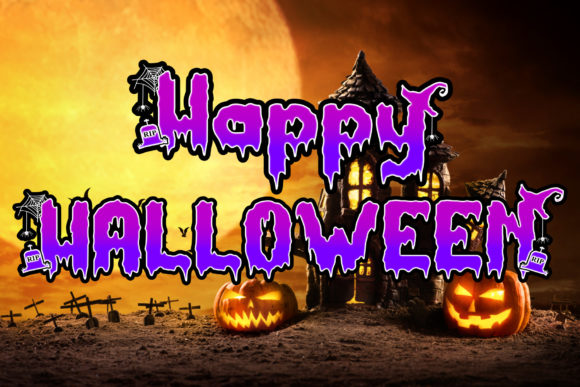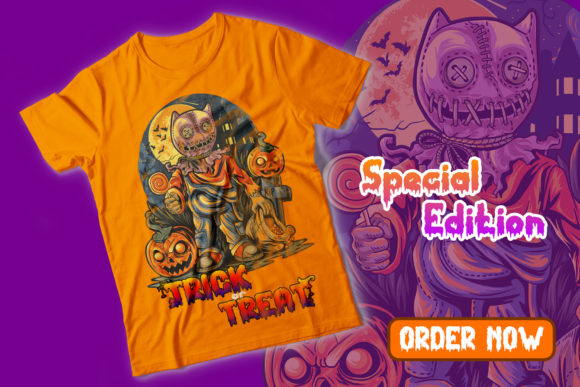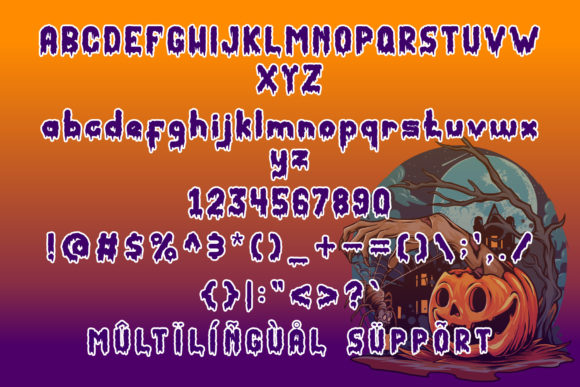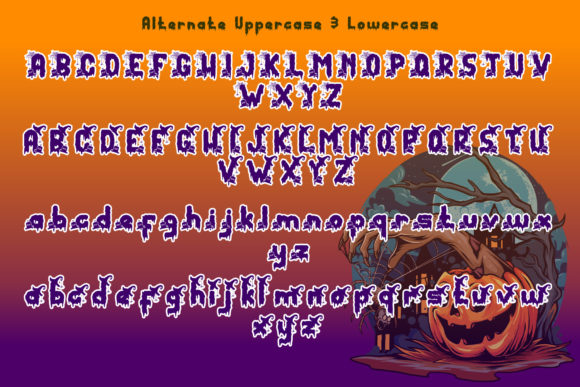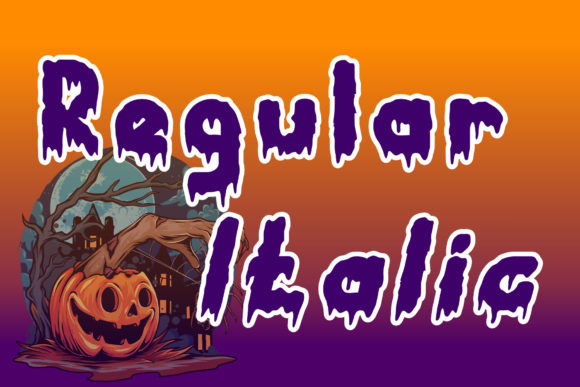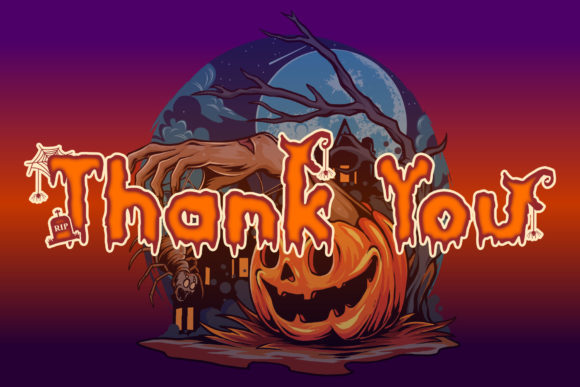
Unleash the Spookiness: Introducing Hello Dark Font
Are you ready to add a touch of eeriness to your designs and crafts? Look no further than the Hello Dark Font, a thick-lettered and spooky decorative font that’s perfect for any Halloween-related project or crafty idea. With its bold and eye-catching design, Hello Dark is sure to make your creations stand out and leave a lasting impression.
What Makes Hello Dark Font So Special?
Hello Dark Font is a unique and versatile font that’s specifically designed to add a spooky touch to your designs. Its thick letters and decorative details make it perfect for creating eye-catching headings, titles, and text displays. Whether you’re working on a Halloween-themed project, a spooky craft, or simply want to add a touch of darkness to your design, Hello Dark Font is the perfect choice.
Endless Possibilities with Hello Dark Font
The only limit to what you can create with Hello Dark Font is your imagination. This font is perfect for a wide range of projects, including:
- Halloween-themed designs, such as party invitations, decorations, and treats
- Spooky crafts, such as DIY decorations, cards, and gift tags
- Creepy and horror-themed designs, such as movie posters, book covers, and video game art
- Dark and moody designs, such as photography and art projects
PUA Encoding: Easy Access to Glyphs and Ligatures
Hello Dark Font is PUA (Private Use Area) encoded, which means that you can access all of the amazing glyphs and ligatures with ease. PUA encoding allows you to access a wide range of special characters and symbols that can be used to add an extra layer of creativity to your designs. With Hello Dark Font, you can easily insert glyphs and ligatures into your text, making it easy to create unique and eye-catching designs.
Why Choose Hello Dark Font?
There are many reasons why Hello Dark Font stands out from the crowd. Here are just a few:
- Unique and eye-catching design: Hello Dark Font has a bold and spooky design that’s sure to grab attention.
- Versatile: This font can be used for a wide range of projects, from Halloween-themed designs to dark and moody art projects.
- Easy to use: Hello Dark Font is PUA encoded, making it easy to access glyphs and ligatures.
- High-quality: This font is designed with high-quality and clarity in mind, making it perfect for both print and digital projects.
Tips and Tricks for Using Hello Dark Font
Here are a few tips and tricks to help you get the most out of Hello Dark Font:
- Experiment with different sizes and colors: Hello Dark Font looks great in a variety of sizes and colors. Experiment with different combinations to find the one that works best for your project.
- Combine with other fonts: Hello Dark Font pairs well with other fonts, such as sans-serif fonts and script fonts. Try combining it with other fonts to create a unique and eye-catching design.
- Use glyphs and ligatures: Don’t be afraid to get creative with glyphs and ligatures. They can add an extra layer of interest and personality to your design.